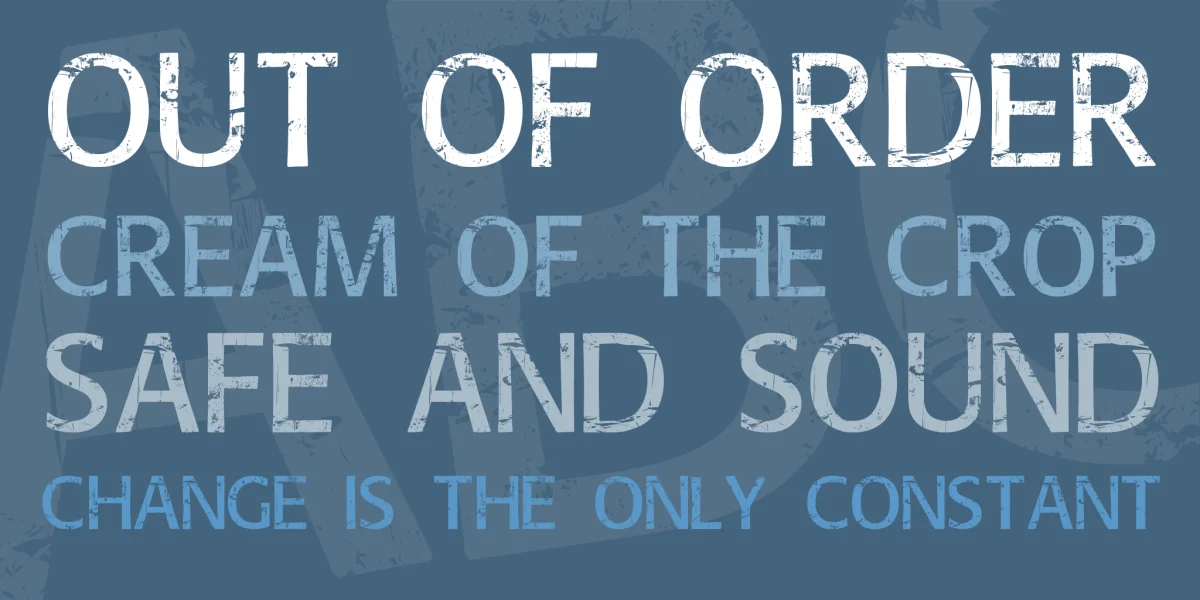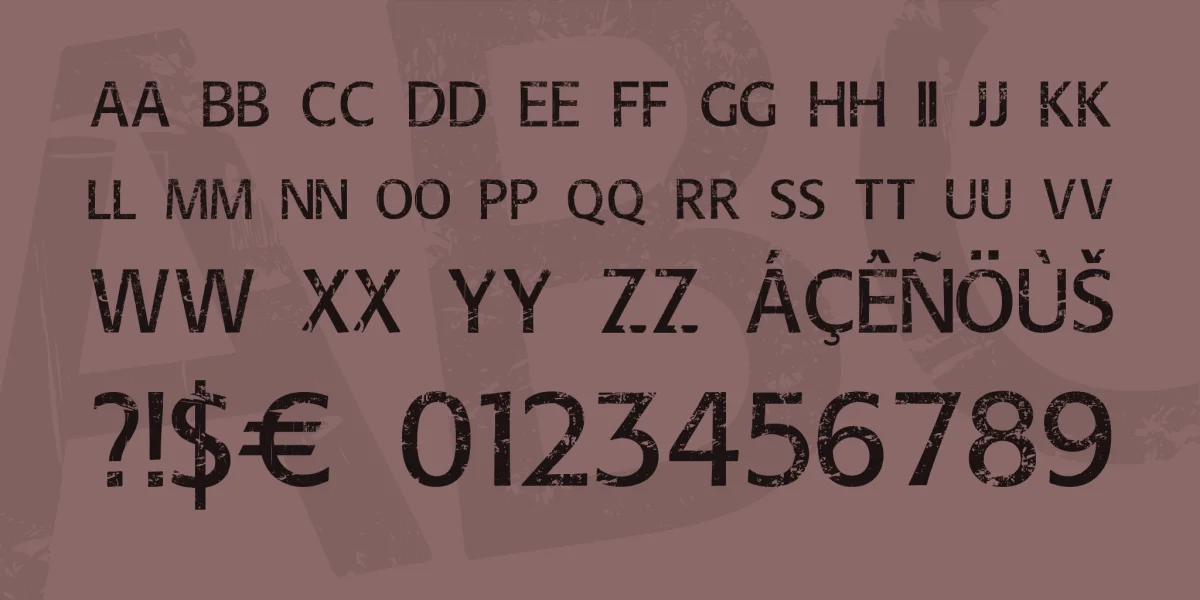
Overhaul is a sans-serif grunge font. Like all other JLH Fonts, this font is in the public domain and comes with the Euro sign. Caution: This font is heavy to load. On some computers, the font can crash or freeze the system.